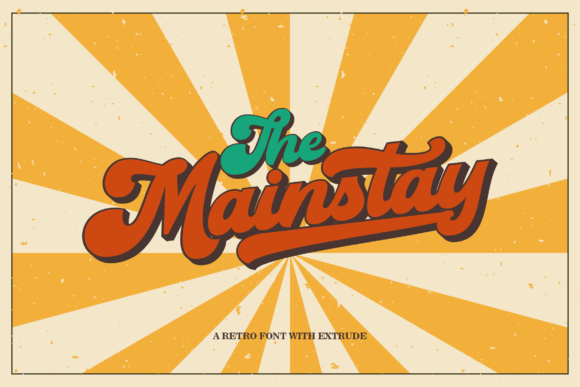
Journey back in time with The Mainstay Font, a captivating script font that exudes vintage charm and nostalgic elegance. Its bold and retro style commands attention, radiating strength, confidence, and dynamism. Whether you're a creative professional or a design enthusiast, The Mainstay Font is your gateway to creating designs that resonate with a timeless appeal.
With its meticulously crafted letterforms and striking personality, The Mainstay Font is a visual masterpiece. Its bold strokes and playful curves dance across the page, evoking a sense of authenticity and warmth. Unleash your creativity and let The Mainstay Font transport you to an era of classic elegance and timeless beauty.
Dive into a world of creative possibilities with The Mainstay Font. Its versatility knows no bounds, lending itself effortlessly to a wide range of design projects. From logos and branding to invitations and social media graphics, The Mainstay Font adds a touch of sophistication and charm to any visual creation. Its vintage aesthetic effortlessly elevates your designs, adding a layer of depth and intrigue that captivates audiences.
Embrace the power of nostalgia and evoke emotions that linger long after the page is turned. The Mainstay Font is your secret weapon for creating designs that connect with audiences on a deeper level. Its ability to evoke memories and stir hearts makes it the perfect choice for projects that aim to create lasting impressions.